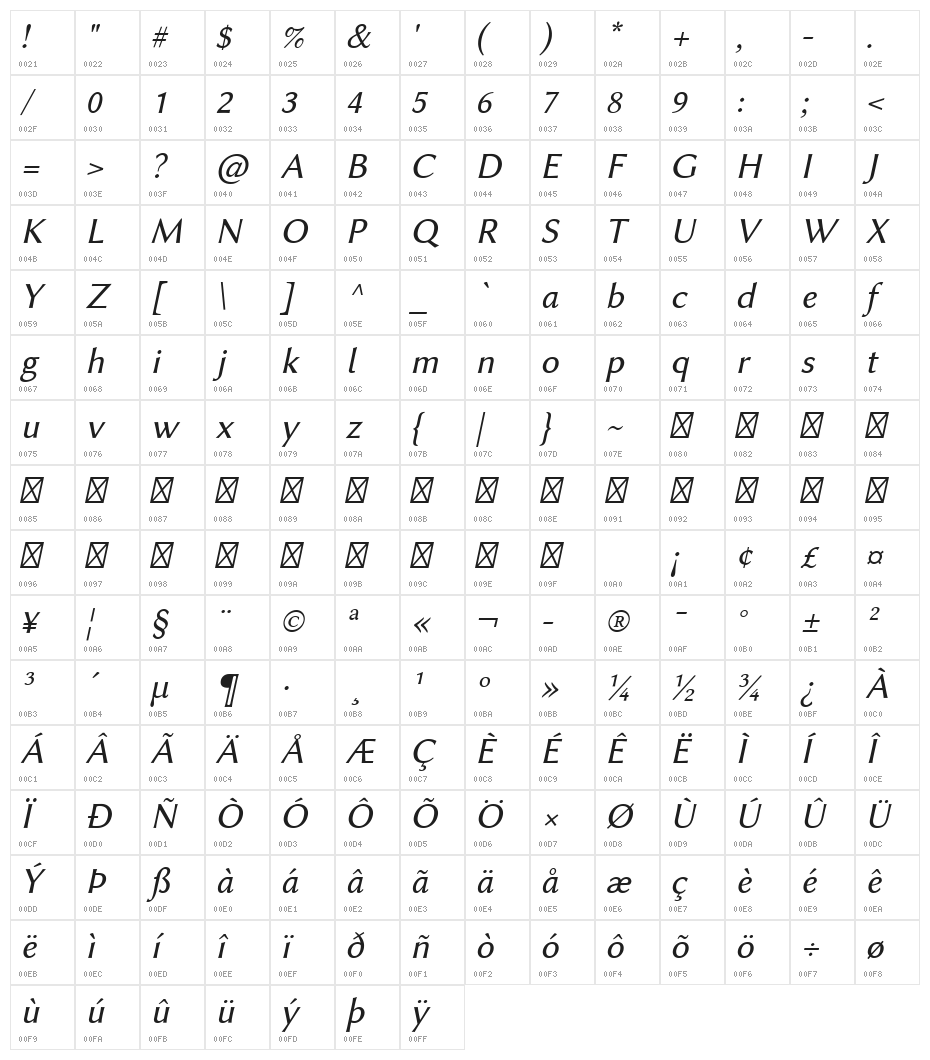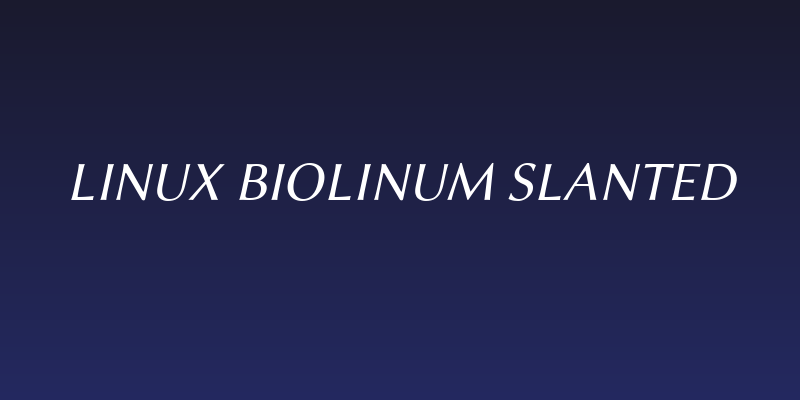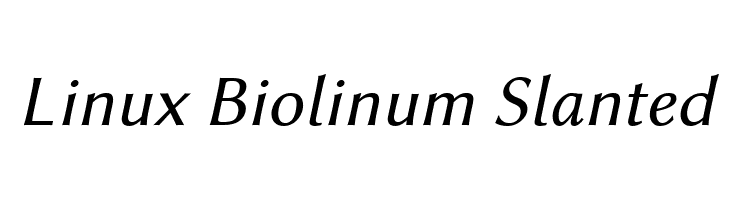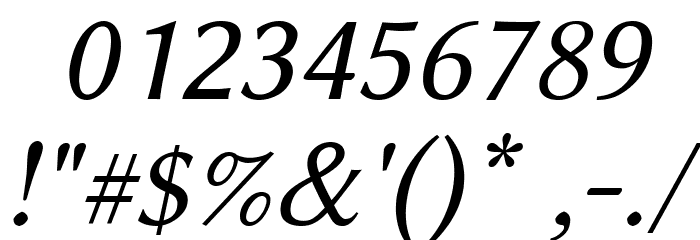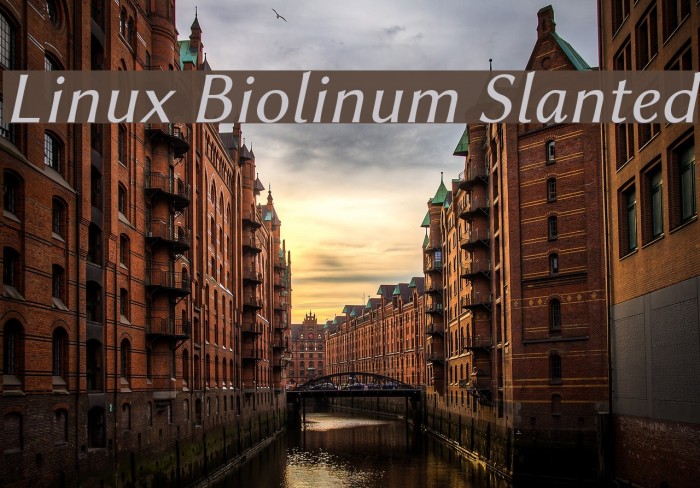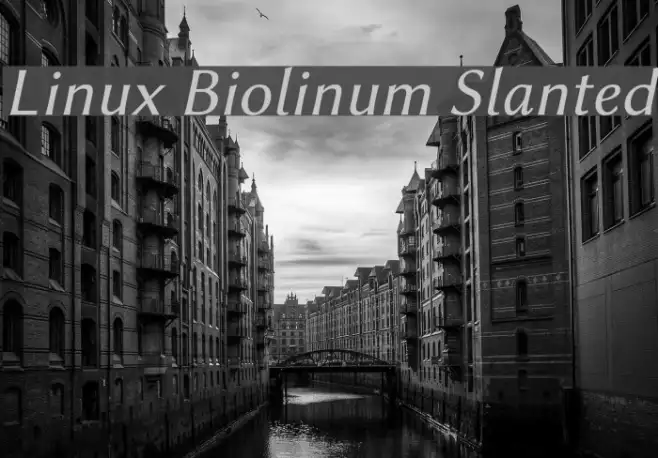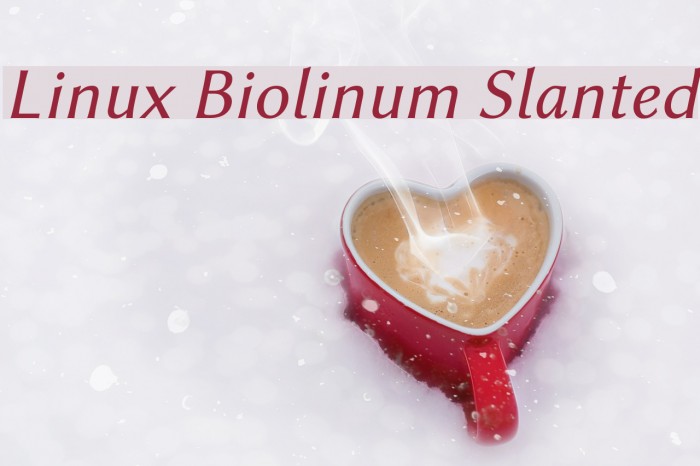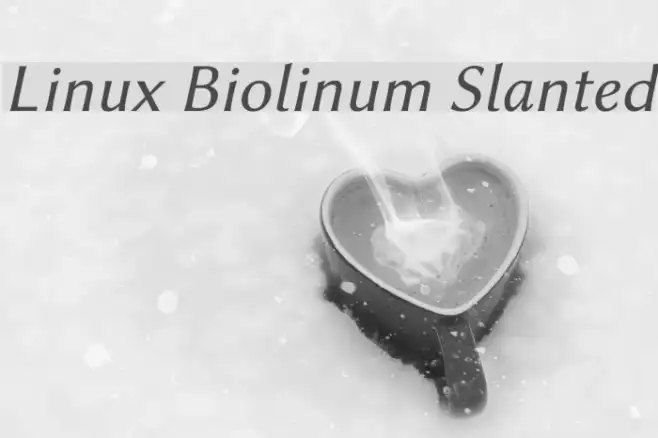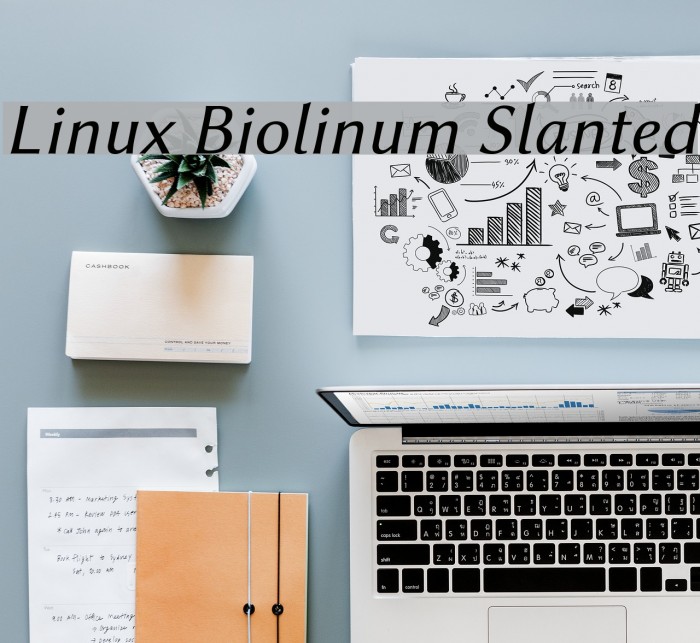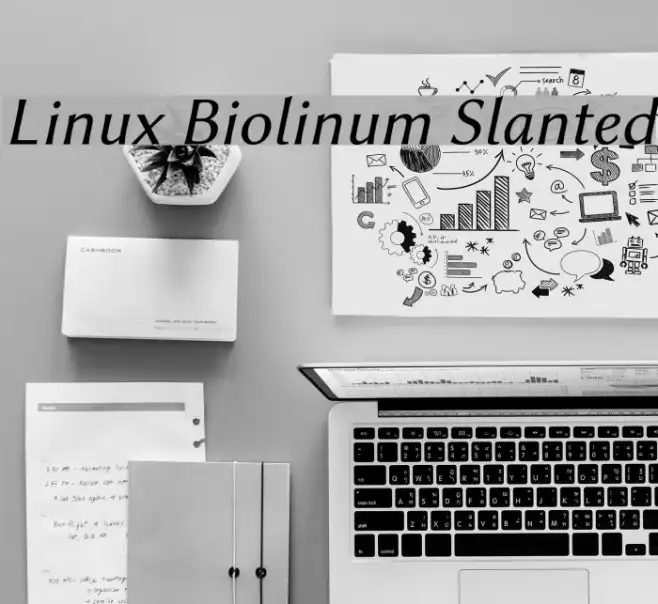
Linux Biolinum Slanted Font
Linux Biolinum Slanted Description
This font features a clean and elegant design with a slanted style that adds a dynamic and sophisticated touch. The characters are well-proportioned with a slight inclination, giving it a sense of movement and fluidity. The uppercase letters are tall and commanding, while the lowercase letters maintain a consistent flow, enhancing readability. The numerals are clear and distinct, making them suitable for various applications. The special characters are well-integrated, ensuring versatility in design projects. Overall, this font combines modern aesthetics with classic elements, making it suitable for a wide range of uses.
| Use Case | Headlines, Body text, Logos |
| Proposed Projects | Ideal for branding, editorial design, invitations, and elegant web design. |